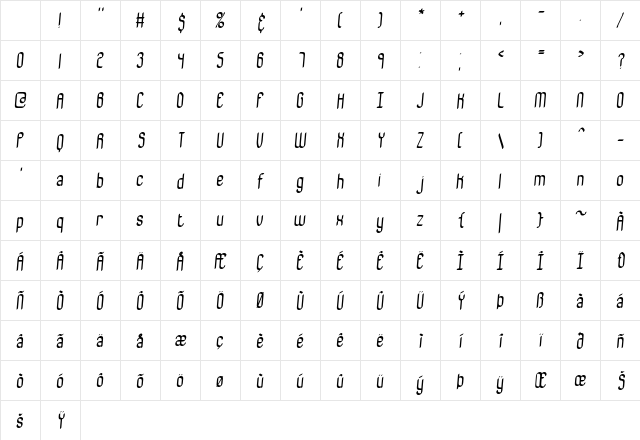
Complete Bewilder BRK Normal glyph index. Displaying only characters natively supported by Bewilder BRK Normal font.
Bewilder BRK is a composed and adaptable typeface that performs quietly and consistently across a wide range of design contexts.
Pro Tip: Use Bewilder BRK in both headline and body roles to test its range before committing to a single application.